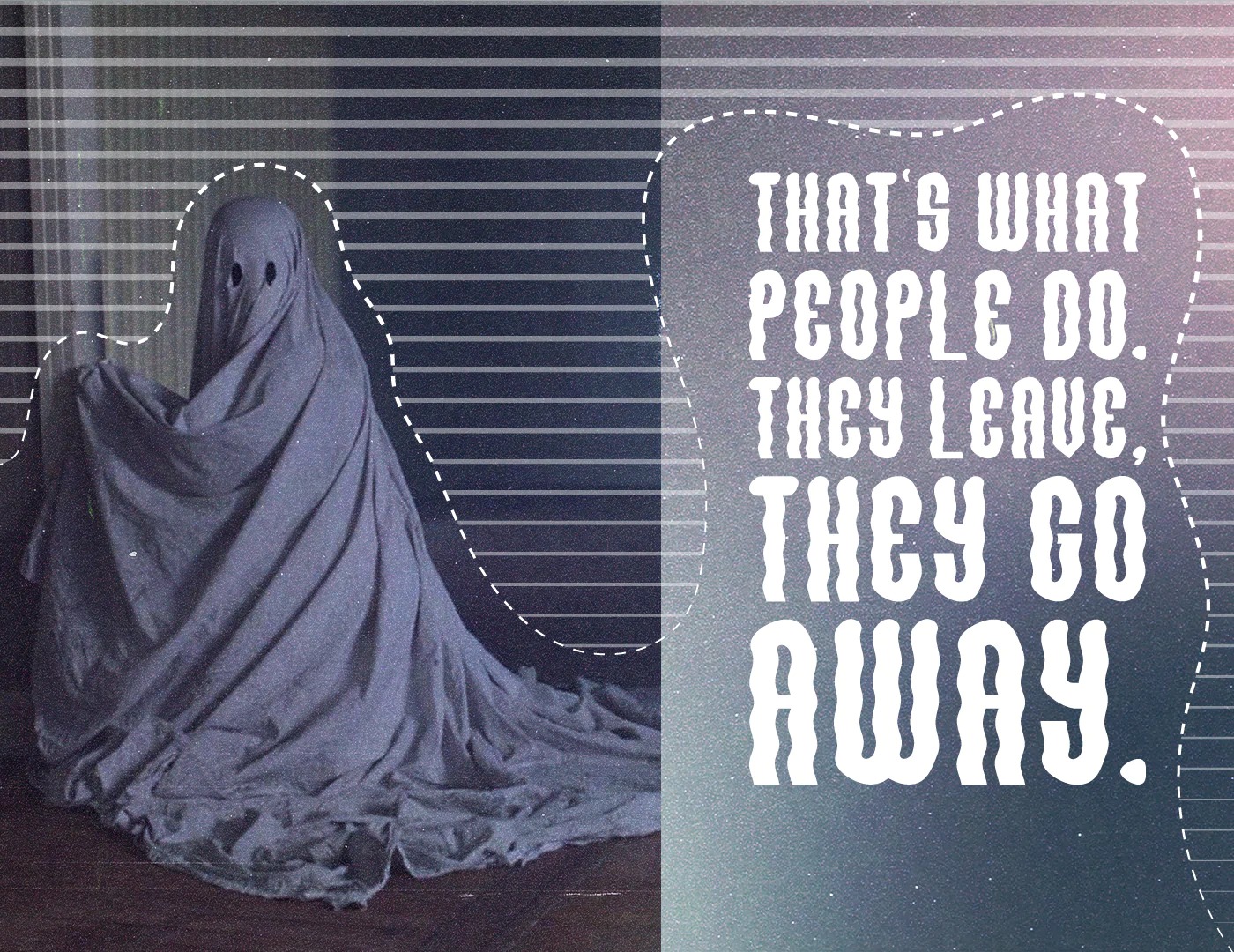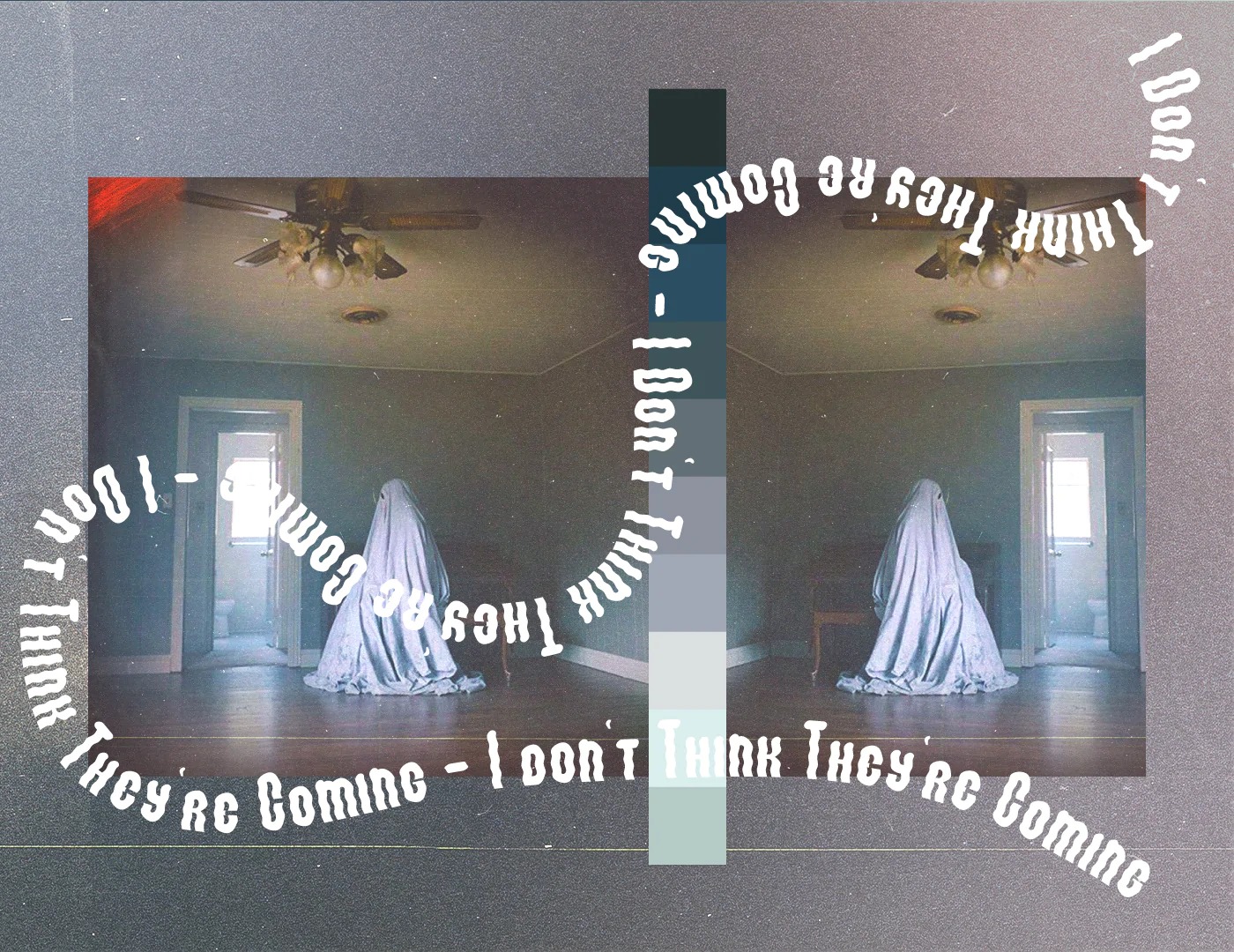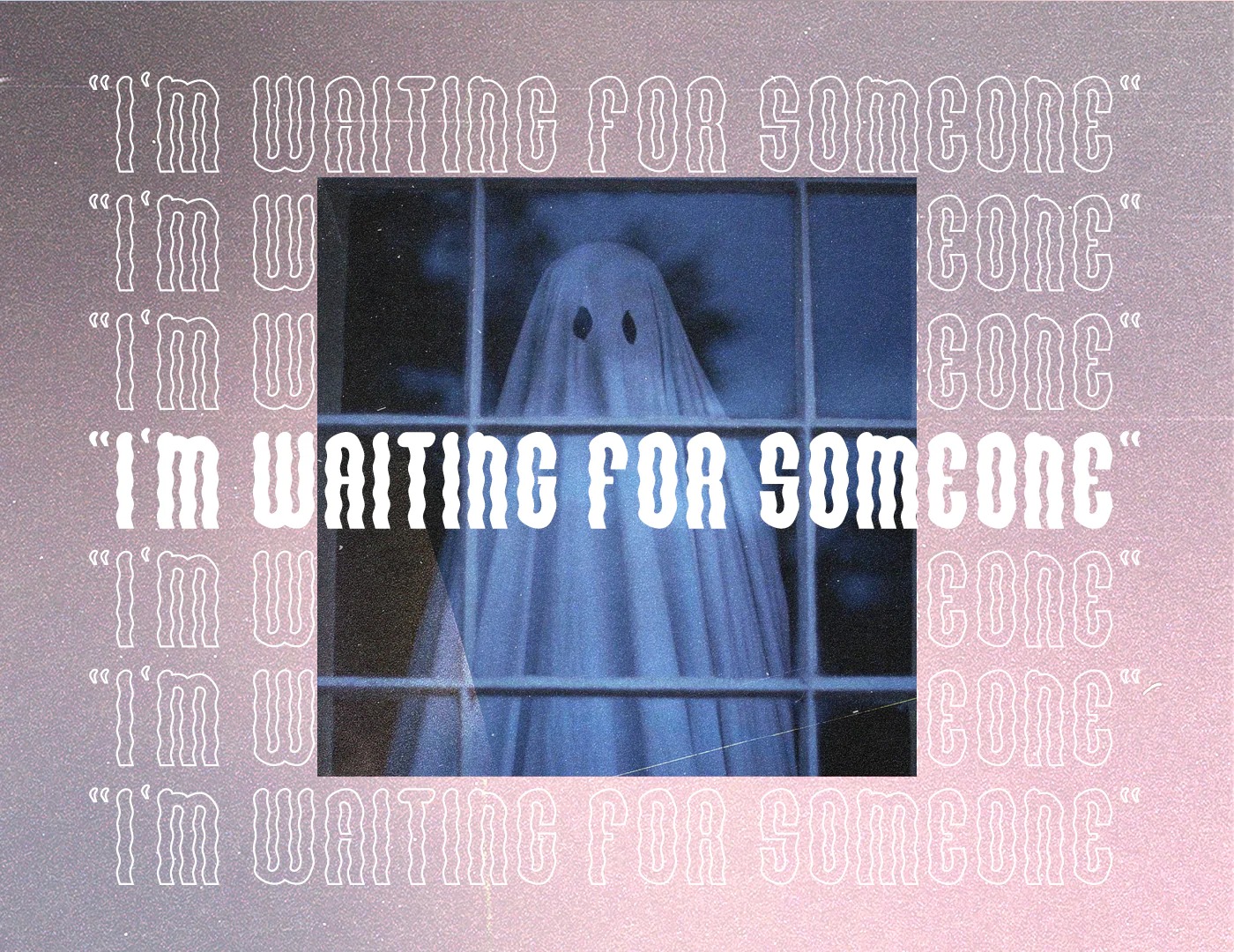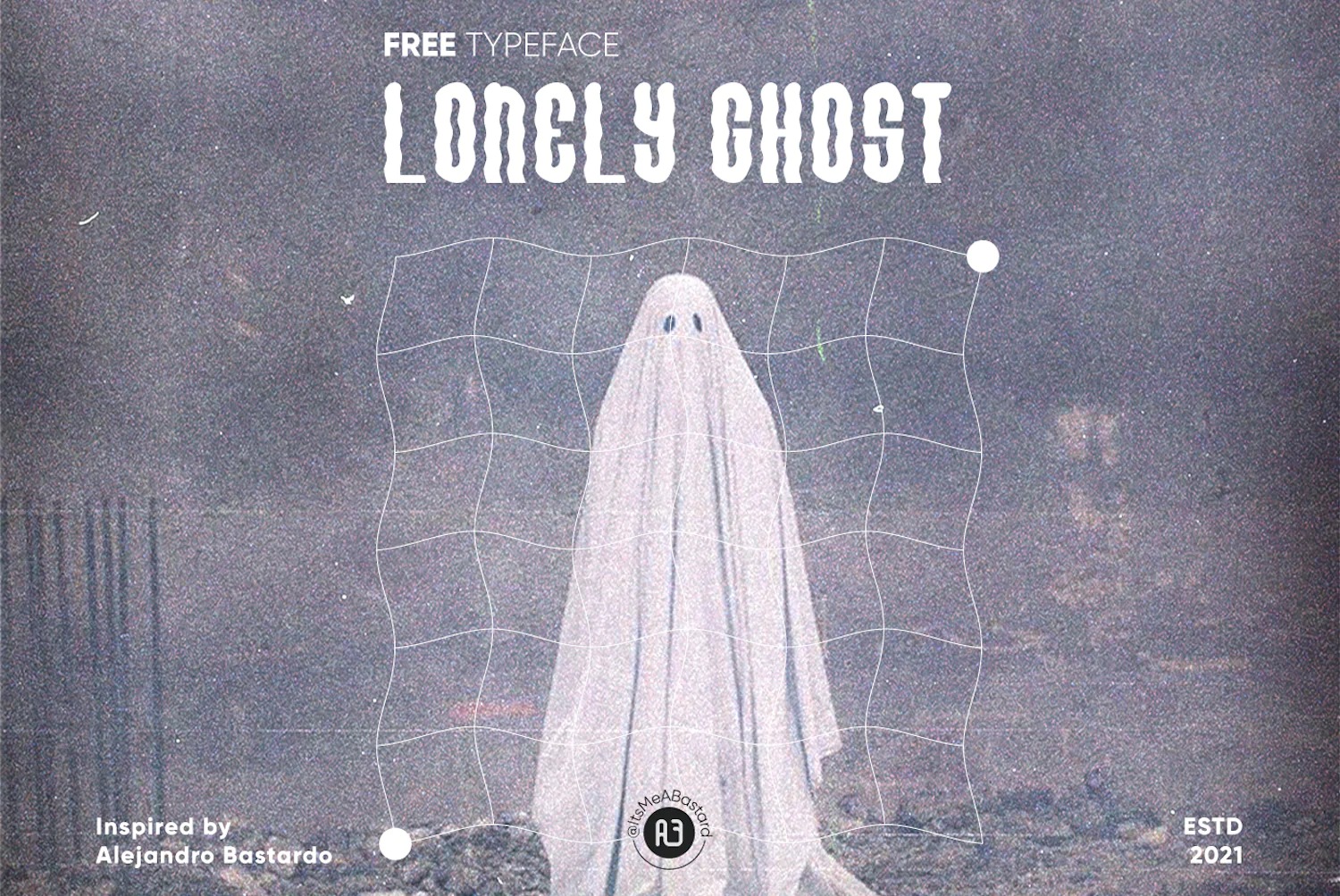
Lonely Ghost Font
Lonely Ghost Display Font is a wavy display typeface with a retro touch that clearly visualizes your designs. This font is inspired by the film ‘A Ghost Story’ directed by David Lowery. The title takes inspiration from the ghostly form with curving ascenders and flat baselines.
Lonely Ghost features multilingual support and is perfect for large display typographic work such as posters, apparel, product packaging, web headers, magazine & book covers, and much more.